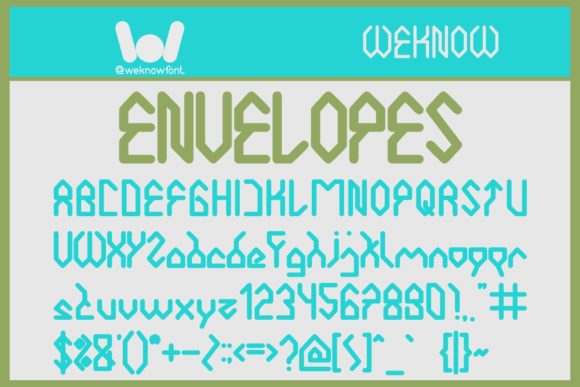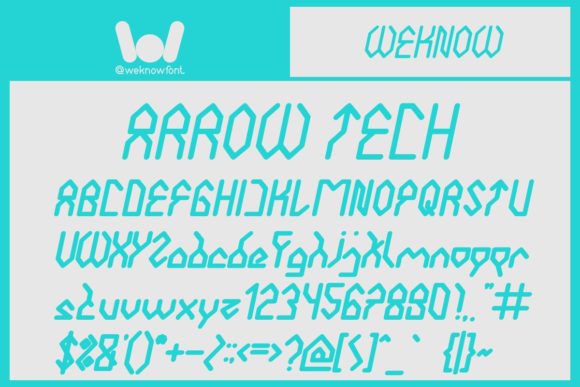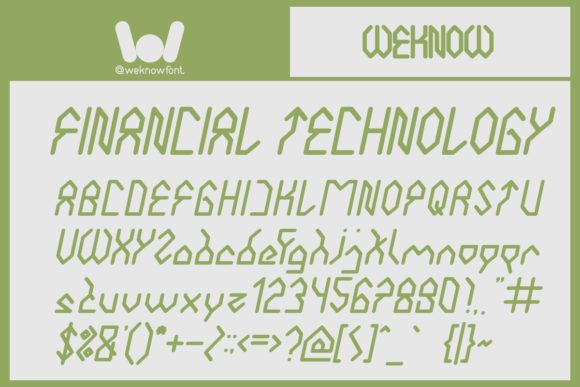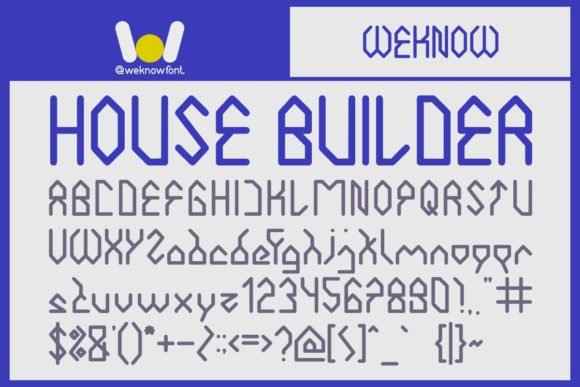
Introduction to House Builder Font
House Builder is a minimal, techno styled display font.
It is the ideal choice for any comic, movie, game, magazine poster and so much more .
House Builder Font offers exceptional quality and versatility, making it a valuable addition to your design toolkit. Whether you’re creating for personal projects or commercial use, House Builder Font delivers professional results.